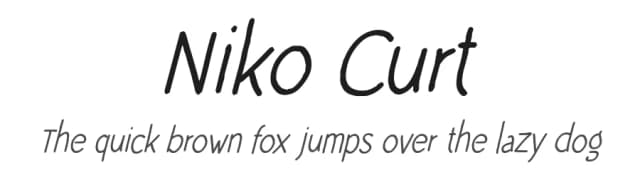
About Niko Curt Script Font
Niko Curt Script is a script & handwritten font designed by Greentrik6789. It includes 446 glyphs, a regular weight, TTF (TrueType) format, and 288 languages. Niko Curt Script is free to download; check the license details on this page before commercial use. Script & handwritten fonts like Niko Curt Script work best for wedding invitations, greeting cards, signatures, and elegant branding.
Niko Curt Script ships with 4 OpenType features you can switch on in apps that support them (Illustrator, InDesign, Affinity, Figma, CSS font-feature-settings).
- Small capitals
Niko Curt Script Font is a script font that shines as a display or heading face. Pair it with a clean sans-serif or serif font for body text β the contrast creates a clear hierarchy while the two styles stay balanced and easy to read.
Niko Curt Script Font
Niko Curt Script Font is a script handwritten typeface by Greentrik6789, ideal for logos, invitations, branding, and creative projects.